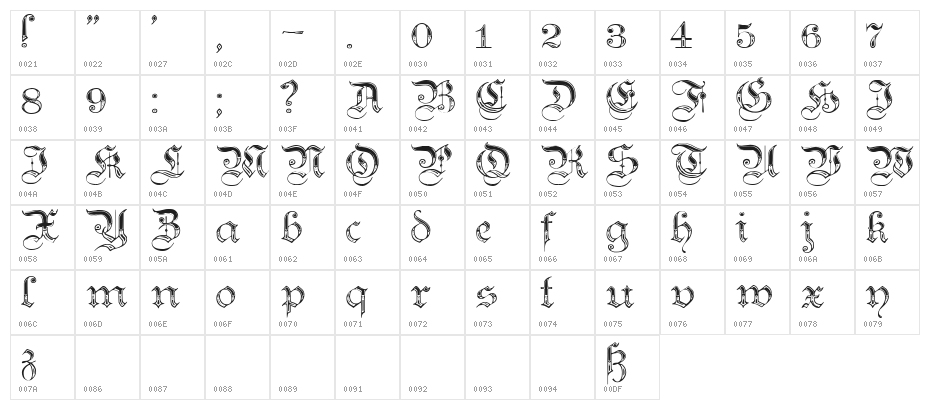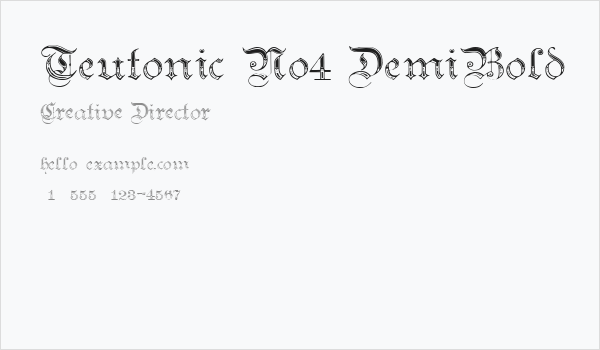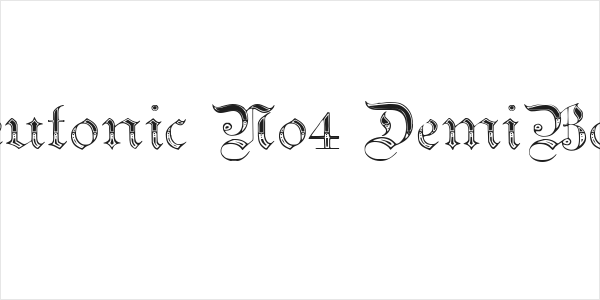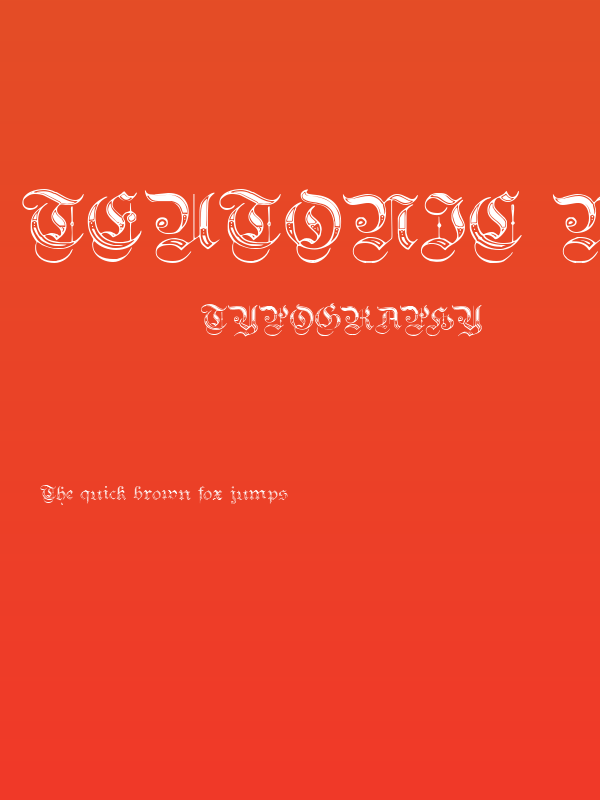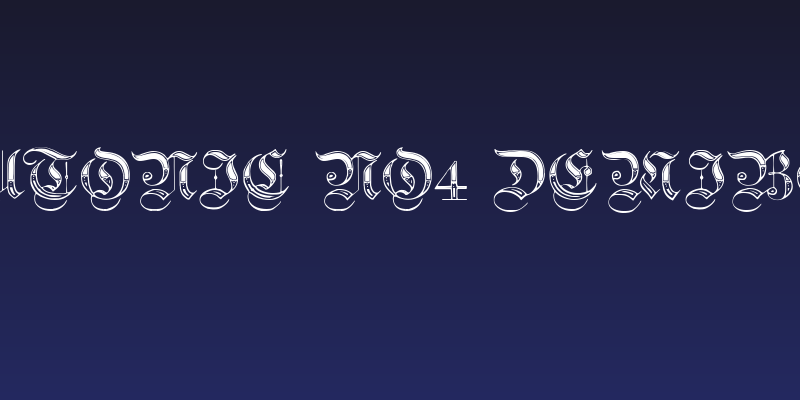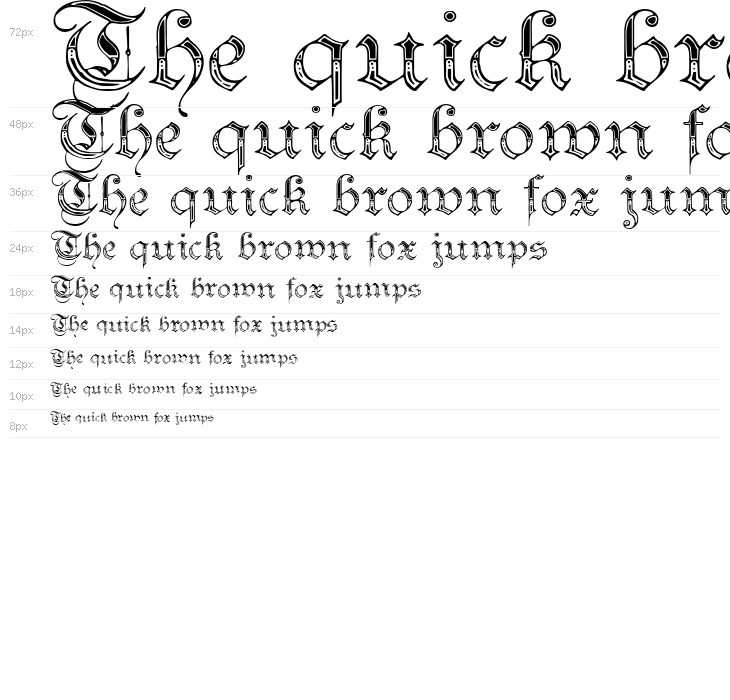
Teutonic No4 DemiBold Font
Teutonic No4 DemiBold Description
This font embodies a classic Blackletter style, characterized by its intricate and ornate design. The letters feature sharp, angular lines with decorative flourishes, giving it a medieval and gothic appearance. The uppercase letters are particularly elaborate, with extended strokes and embellishments that enhance their visual impact. The lowercase letters maintain the same level of detail, ensuring consistency throughout the typeface. The numerals and special characters are equally ornate, making this font suitable for projects that require a historical or traditional aesthetic. Its bold and dramatic presence makes it ideal for creating striking headlines or logos.
Overall StyleGothic, Traditional
Use CaseHeadlines, Logos, Decorative text
Proposed ProjectsIdeal for historical documents, medieval-themed designs, book covers, and branding that requires a traditional or gothic touch.